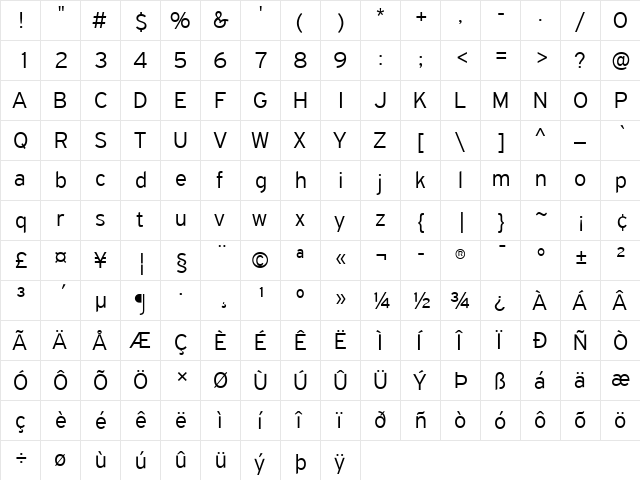
PF Highway Sans Pro Light
| Foundry | Parachute蠗orldwide |
| Designer | Panos Vassiliou |
Design Context for PF Highway Sans Pro Typeface
PF Highway Sans Pro takes a measured approach to typography — its balanced proportions and neutral character make it a reliable workhorse for both digital and print work. Its slender proportions lend an understated elegance to any composition.